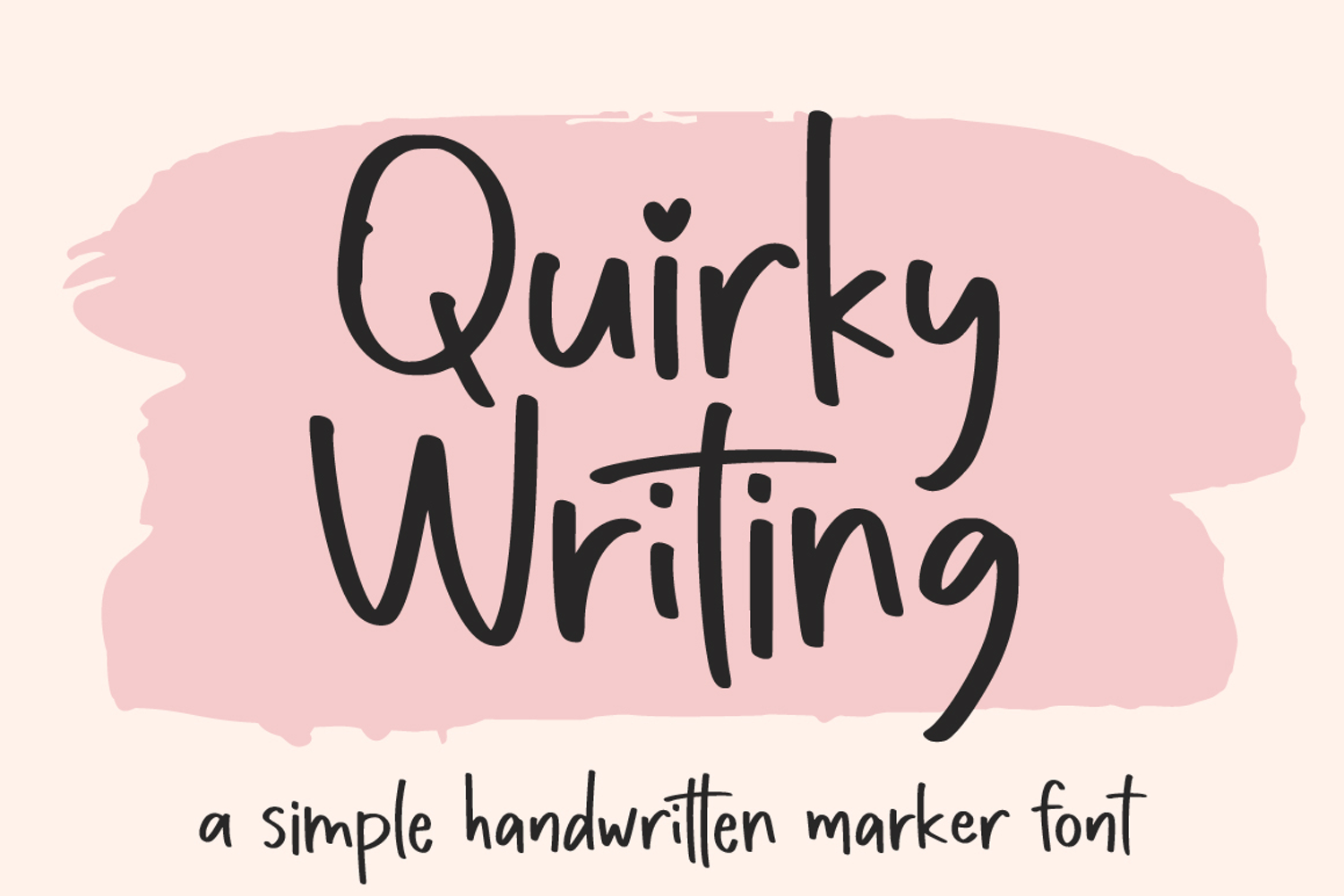
Quirky Writing - Simple Marker Font
Quirky Writing
Quirky Writing is a bold and playful, but also elegant handwritten font. It has beautiful and neat characters and as a result, it matches a wide pool of designs.
This font is perfect for many different project such as logos, branding, social media, crafty DIY projects or anything.
Quirky Writing - Simple Marker Font
By Typesthetic Studio